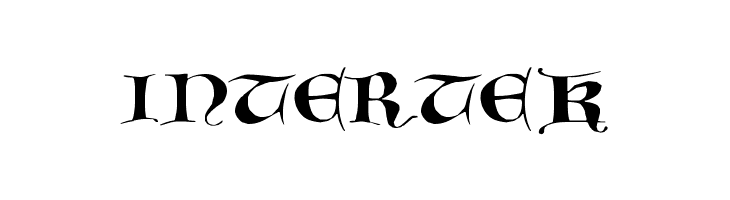
Nihalloo Folk Font Regular Font
- Font: Nihalloo Folk Font Regular
A decorative Gothic-style font with intricate, angular designs and ornate details.